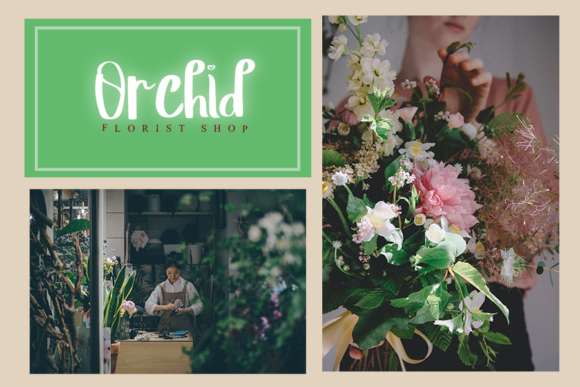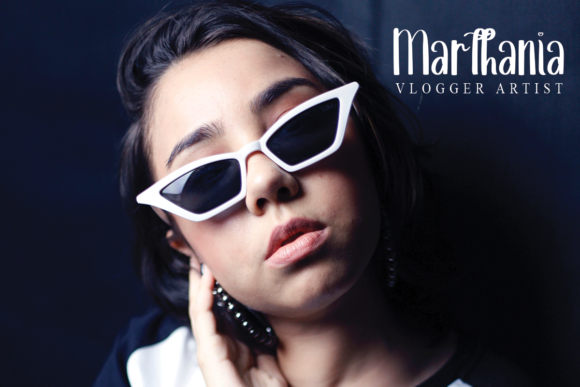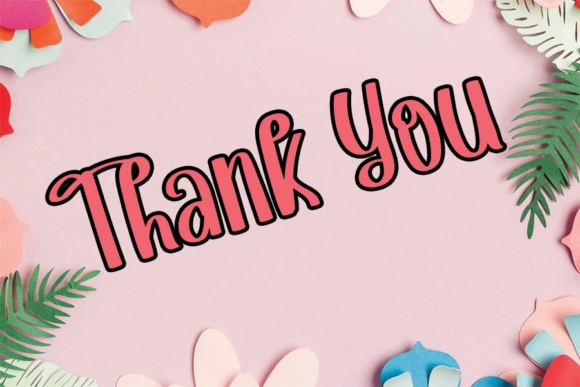
Introduction to Secret Happines Font
Have you ever stumbled upon that perfect font that makes your design come alive? For many creatives, it’s a moment of pure magic. And, for those who’ve been searching for the elusive perfect font, we’ve got exciting news. Today, we’re shining the spotlight on the Secret Happines Font – a delicate, elegant, and flowing handwritten font that’s sure to captivate your audience.
What makes the Secret Happines Font truly special is its versatility. With beautiful and well-balanced characters, it seamlessly integrates into a wide range of designs, from whimsical illustrations to sleek, modern graphics. Whether you’re working on a personal project or collaborating with clients, this high-quality font is an invaluable resource that’s sure to elevate your creative output.
Key Features of Secret Happines Font
- High-quality design resource for creative projects, perfect for adding a touch of elegance and sophistication.
- Unique, hand-drawn design with a transparent background, allowing for seamless integration into various design elements.
- Includes a range of characters, including uppercase and lowercase letters, numbers, and punctuation marks, making it a versatile design resource.
- Perfect for use in various design contexts, including logos, typography, and other creative projects, where a unique and high-quality font is required.
Honest Review: Secret Happines Font
- High-quality design: The font is well-crafted, with smooth lines and a clean aesthetic.
- Limited font styles: While the font itself is beautiful, the number of styles available is somewhat limited.
- No bold or italic options: This can be a bit restrictive when trying to create emphasis or contrast in your design.
Overall, I’m impressed with the Secret Happines Font. It’s a solid choice for designers looking for a high-quality, free download. While it may not be perfect, it’s a great addition to any design resource library.
Use the Secret Happines Font in combination with a transparent background to create a modern and sleek design. Experiment with different font sizes and styles to add depth and interest to your design. You can also use the font in a creative project, such as a social media graphic or a flyer, to grab attention and convey your message.
The Secret Happines Font is ideal for use in a variety of creative projects, including social media graphics, flyers, brochures, and posters. It’s also a great choice for use in presentations, such as PowerPoint or Keynote, to add a touch of elegance and sophistication.